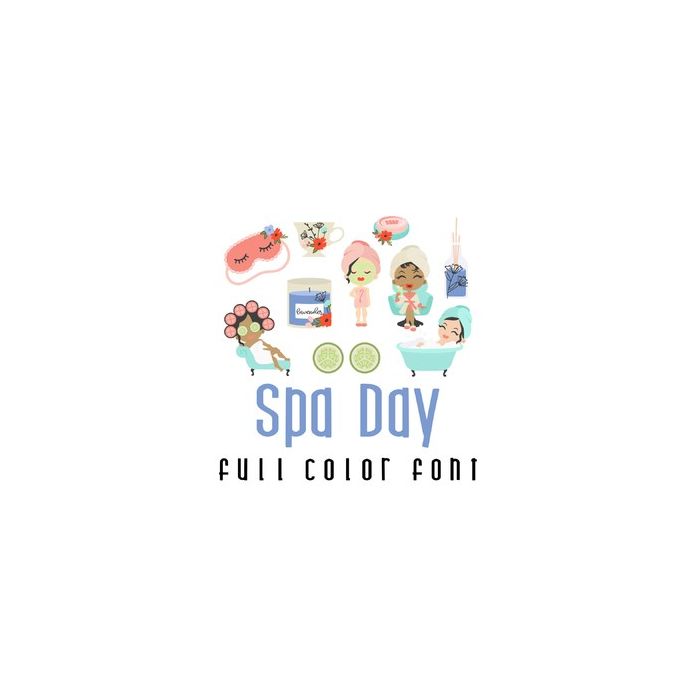
This adorable full color doodlebat font features adorable ladies ready for the spa and spa themed accessories. Perfect for cards, crafts, gifts, decor, scrap book pages, planner stickers and more!